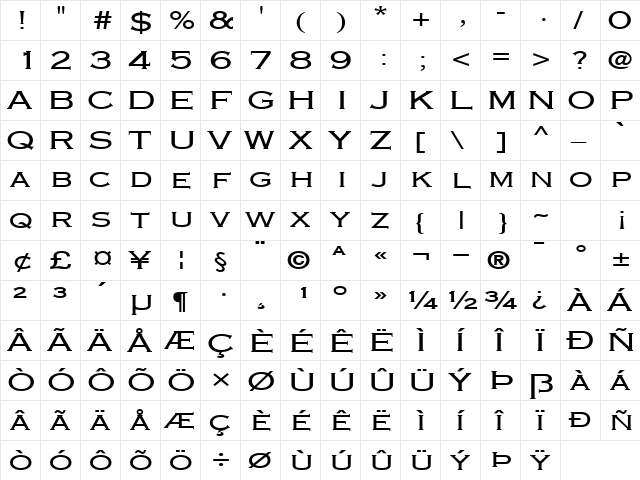
Engraver-Extended Normal
Design Context for Engraver-Extended Typeface
Engraver-Extended is a composed and adaptable typeface that performs quietly and consistently across a wide range of design contexts.